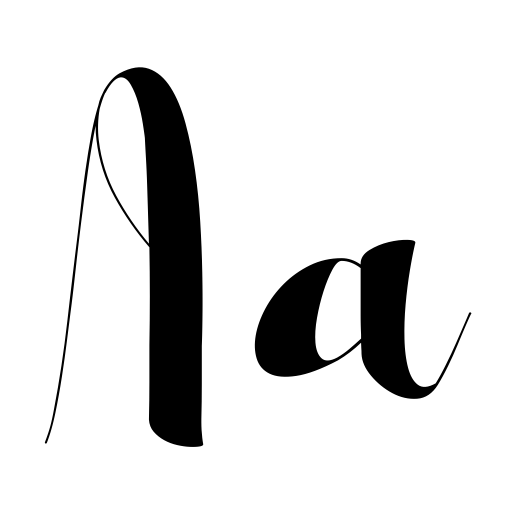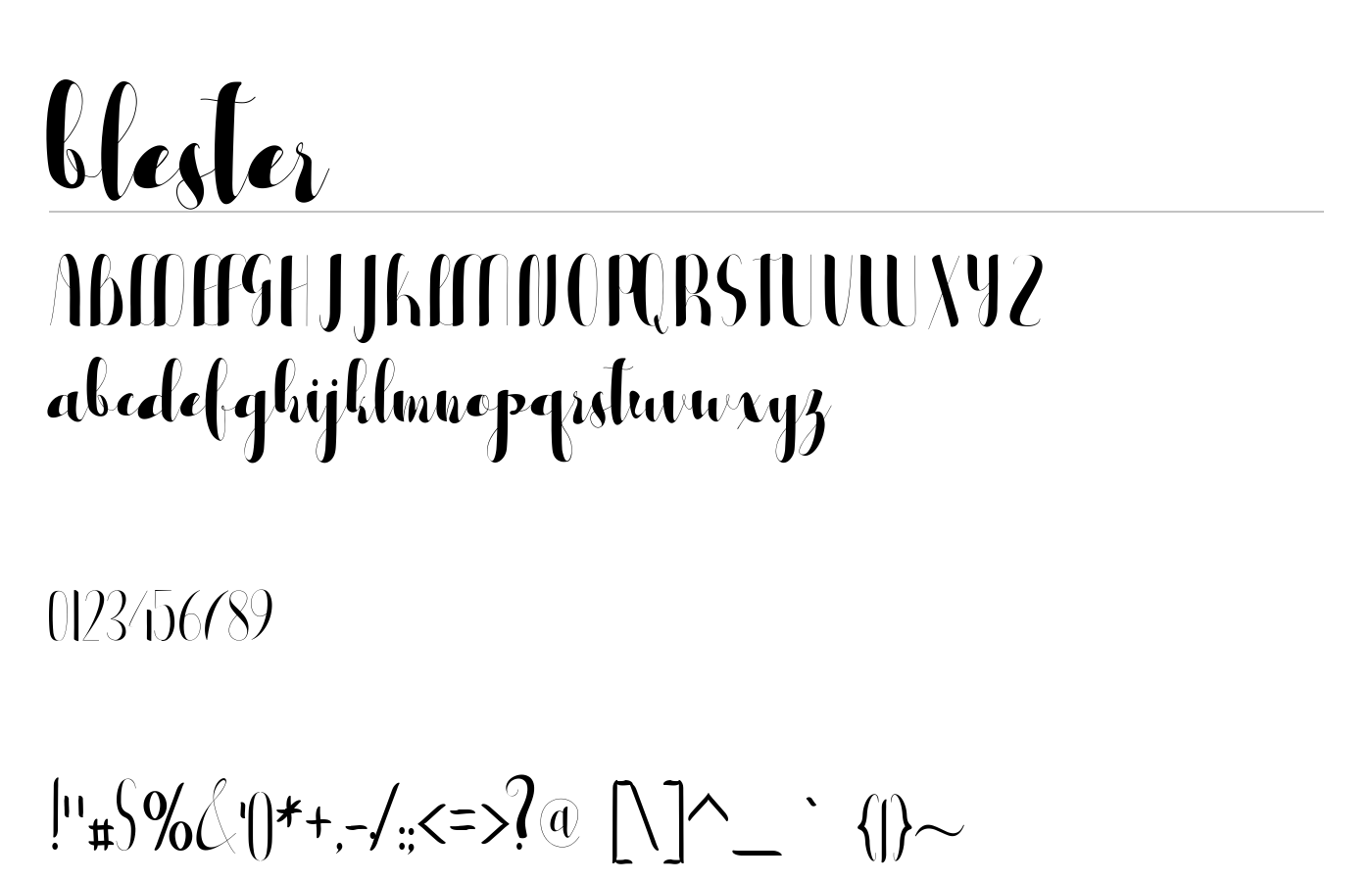
Blester is an elegant script font with a modern flair, featuring thick, smooth strokes coupled with delicate, thin flourishes that add a graceful, handwritten touch. Its tall, narrow letterforms and high contrast create a refined yet dynamic feel, making it perfect for stylish branding, invitations, and decorative headlines where a charming and sophisticated look is desired.
blester Font